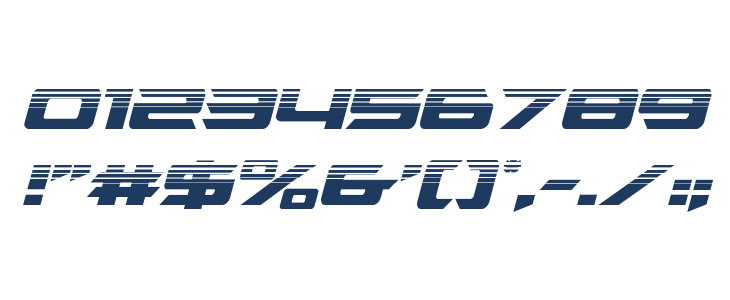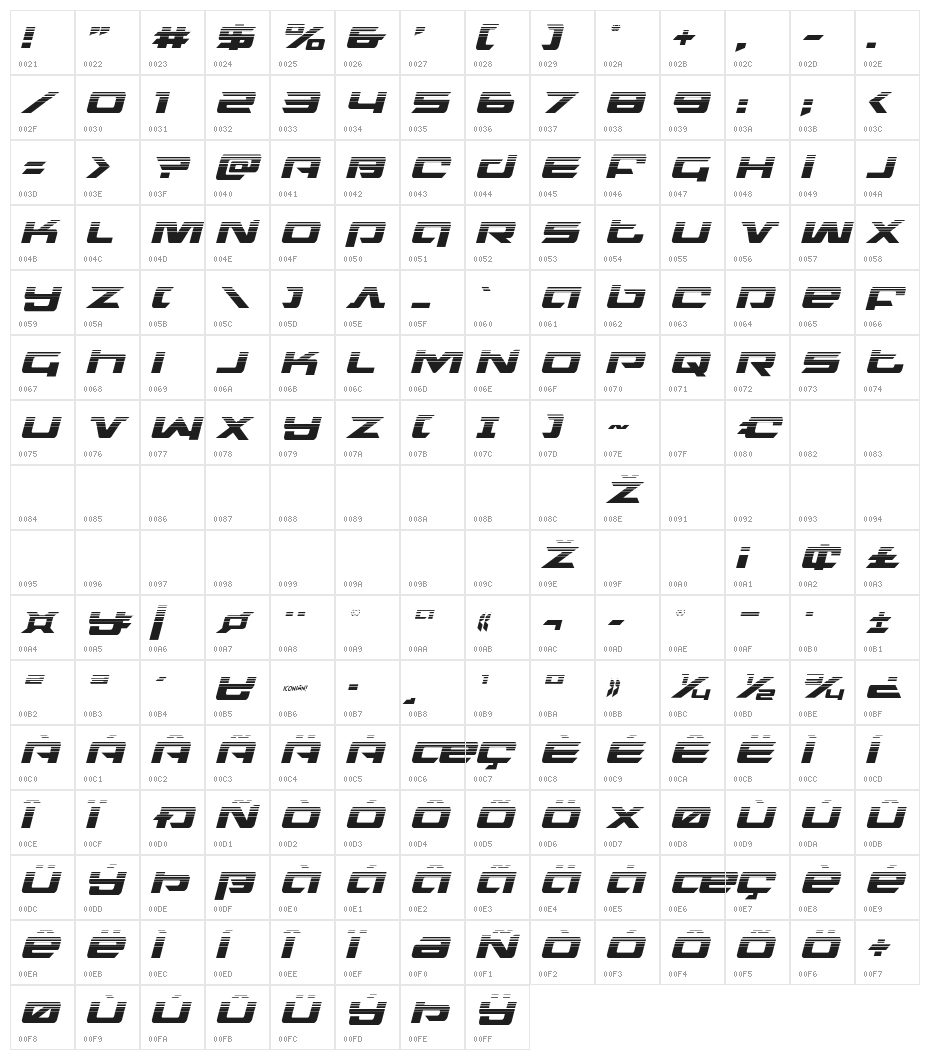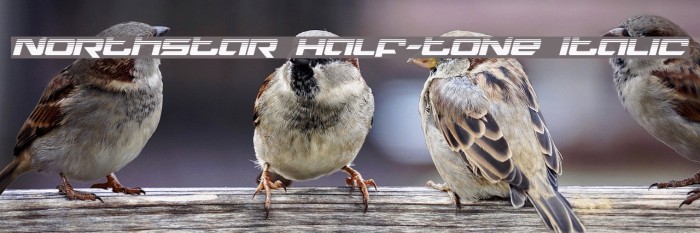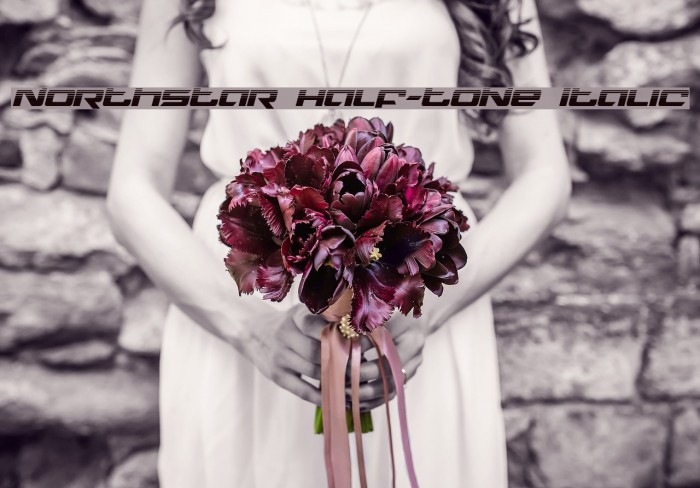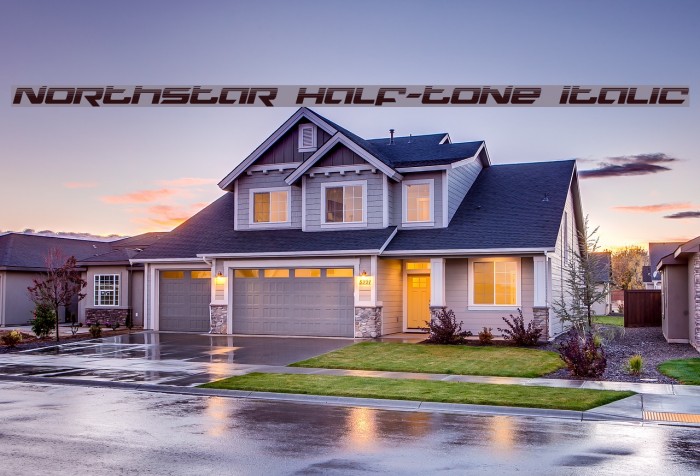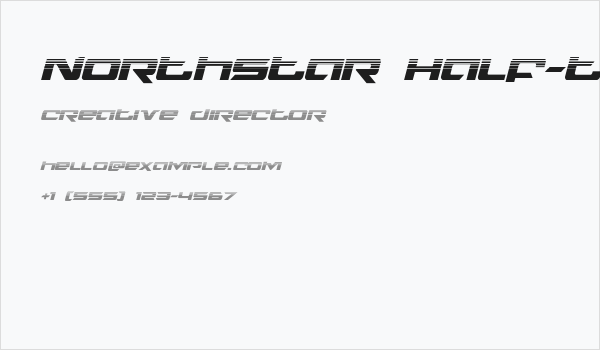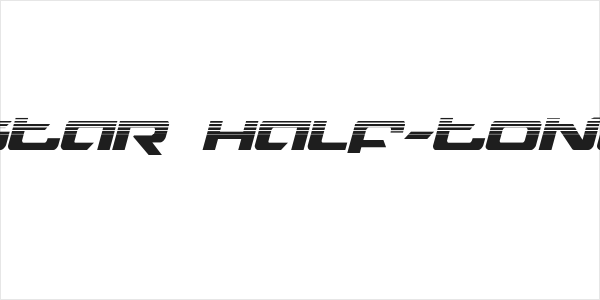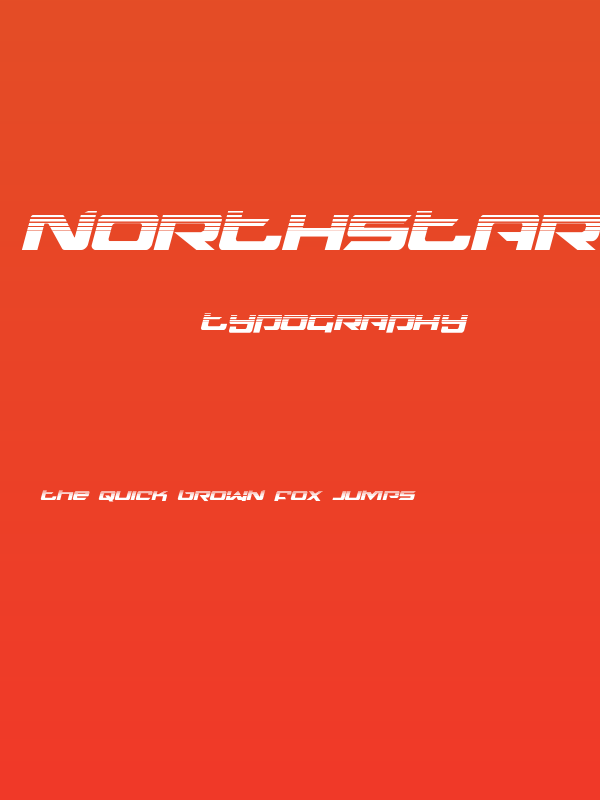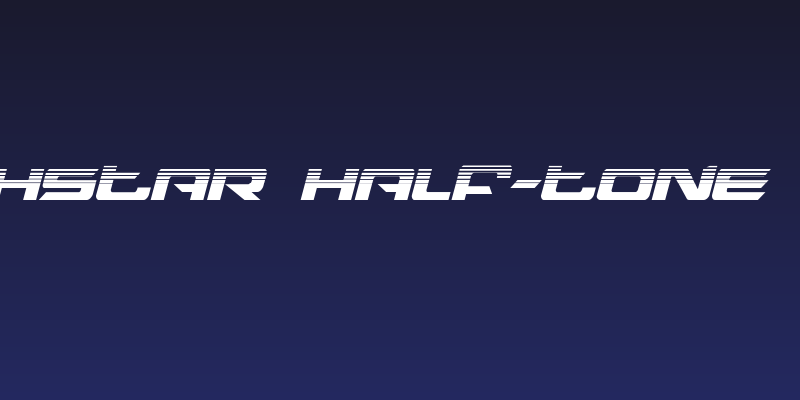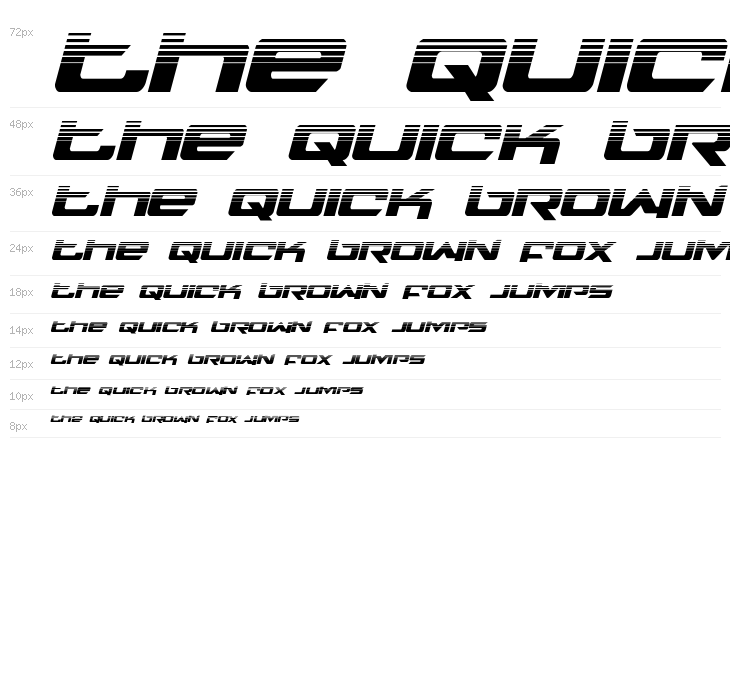
Northstar Half-Tone Italic Font
Northstar Half-Tone Italic Description
This font features a bold, futuristic design with a distinct halftone effect that gives it a dynamic and energetic appearance. The characters are italicized, adding a sense of motion and speed. Each letter is constructed with horizontal lines that create a unique texture, making it stand out in any design. The font maintains a consistent width, ensuring readability while still offering a decorative flair. The numbers and special characters follow the same stylistic approach, providing a cohesive look across all elements.
Overall StyleFuturistic, Dynamic
Proposed ProjectsIdeal for sci-fi themed projects, video game titles, futuristic branding, and dynamic poster designs.